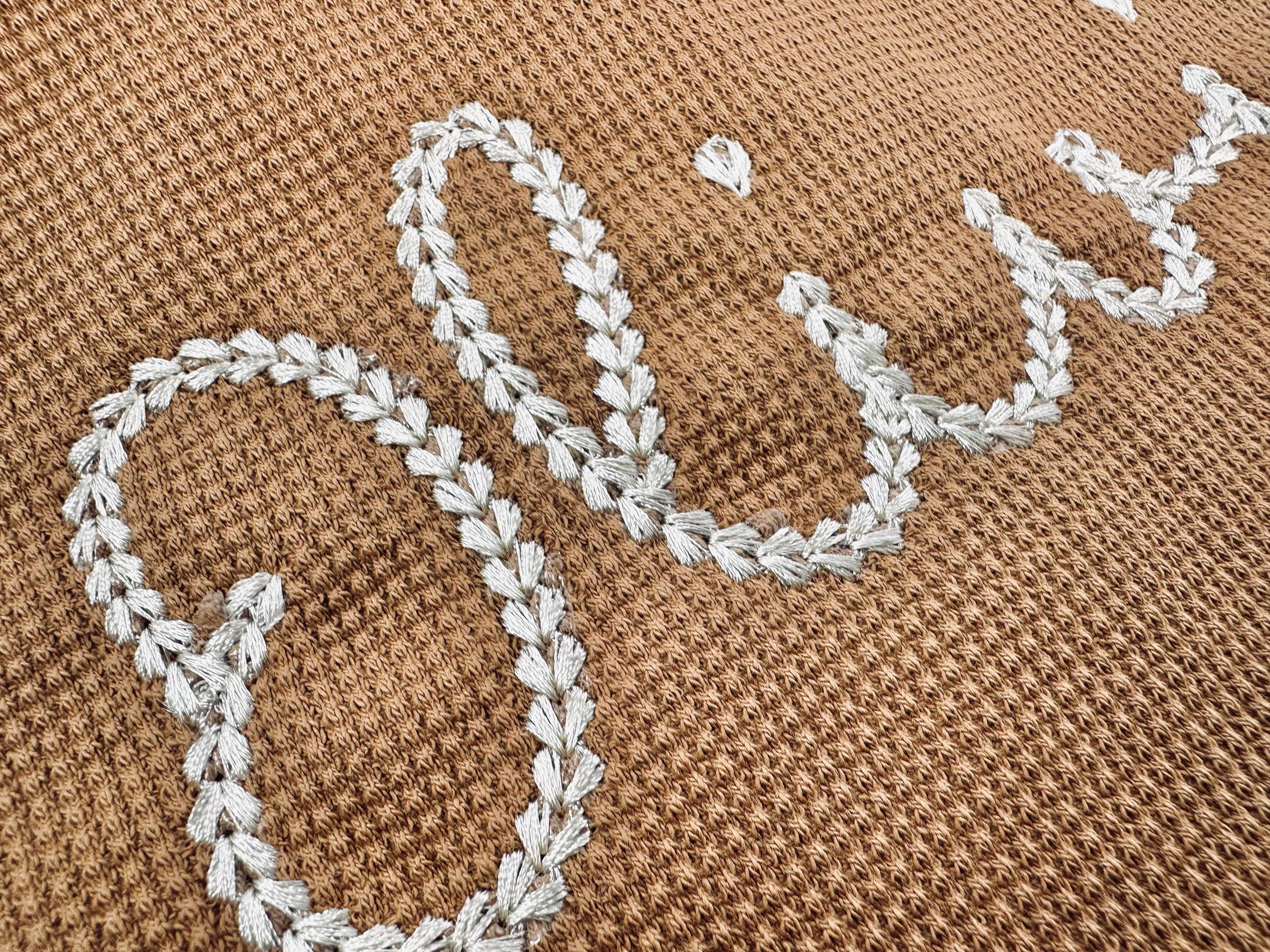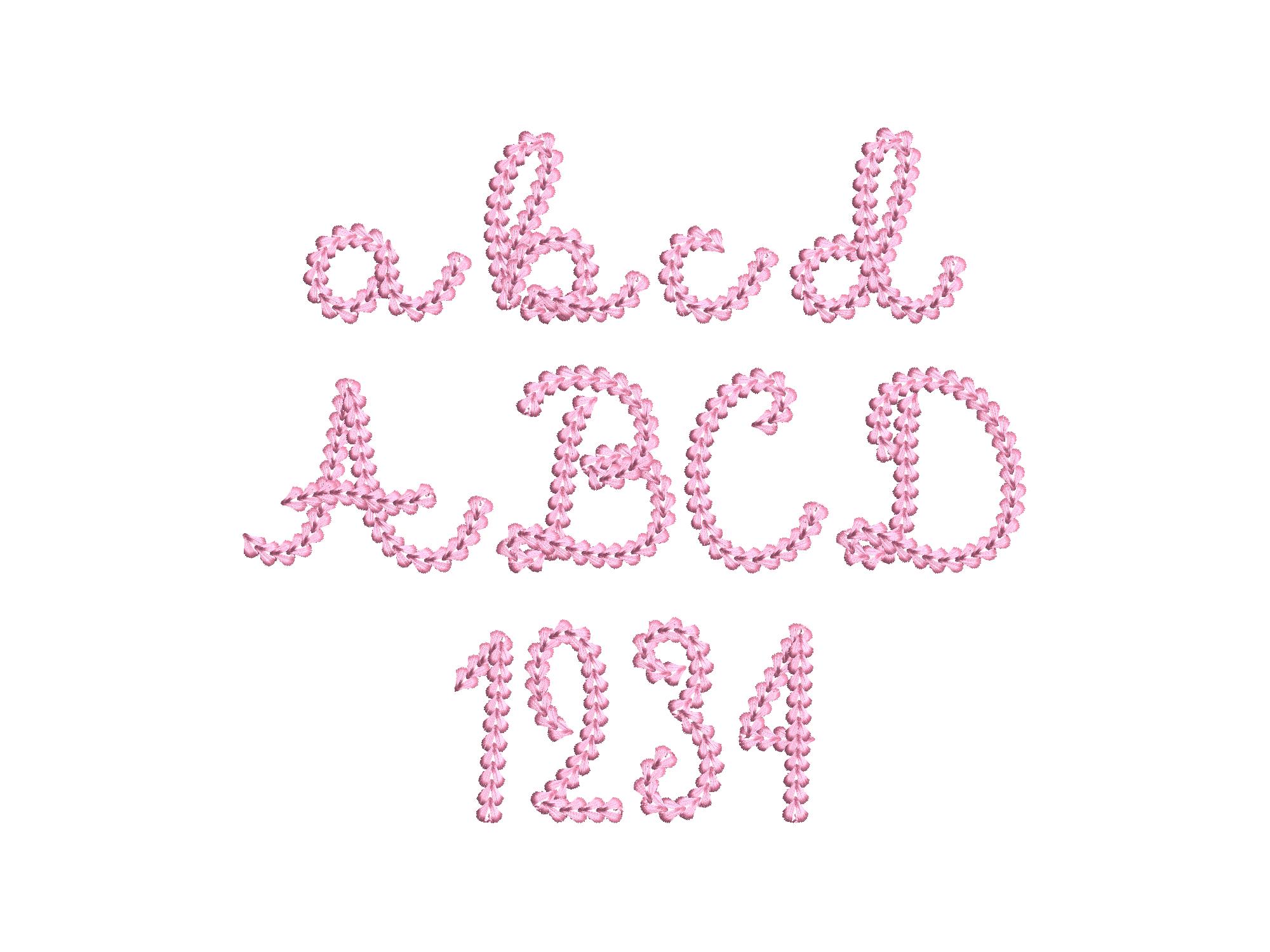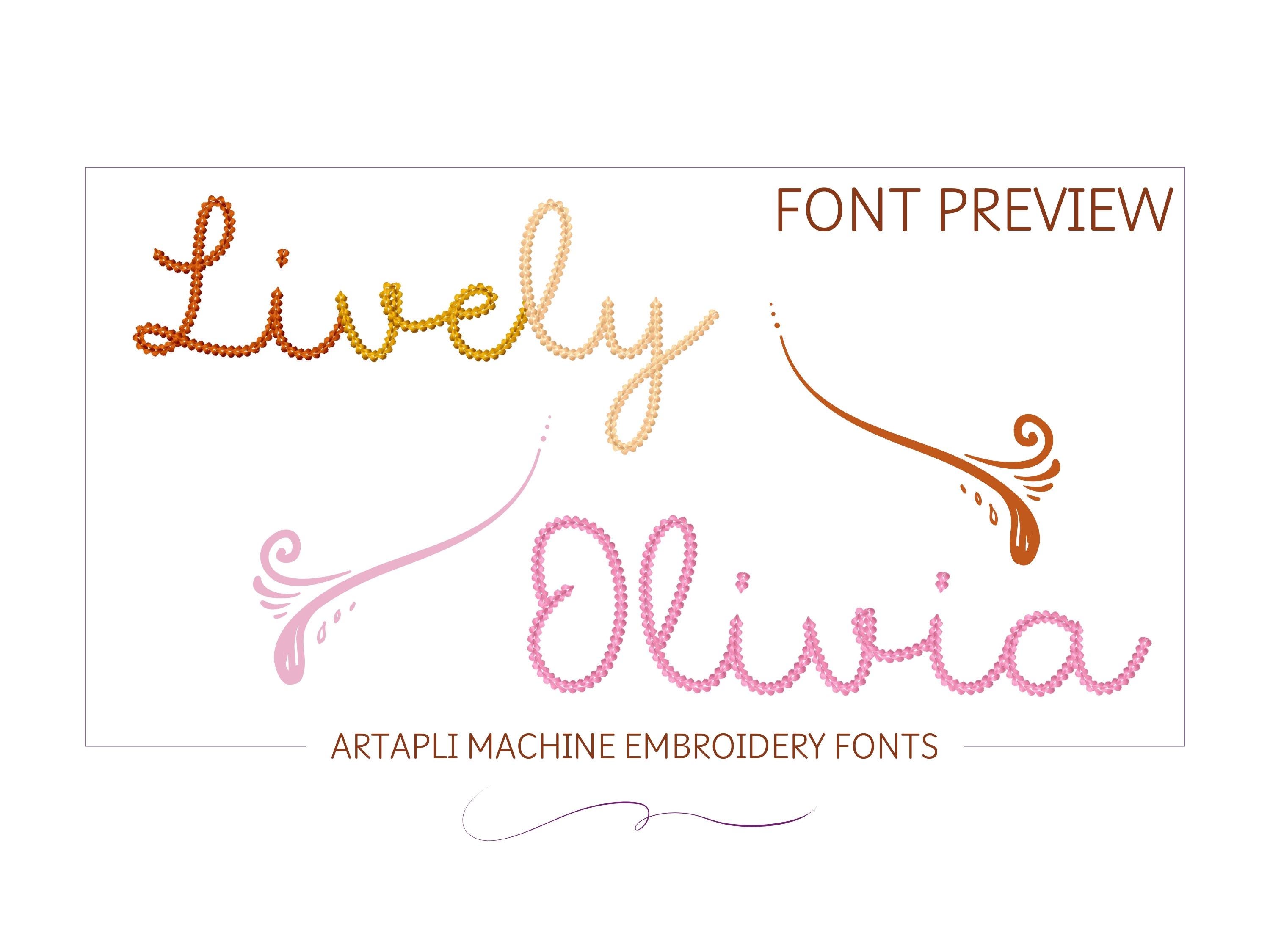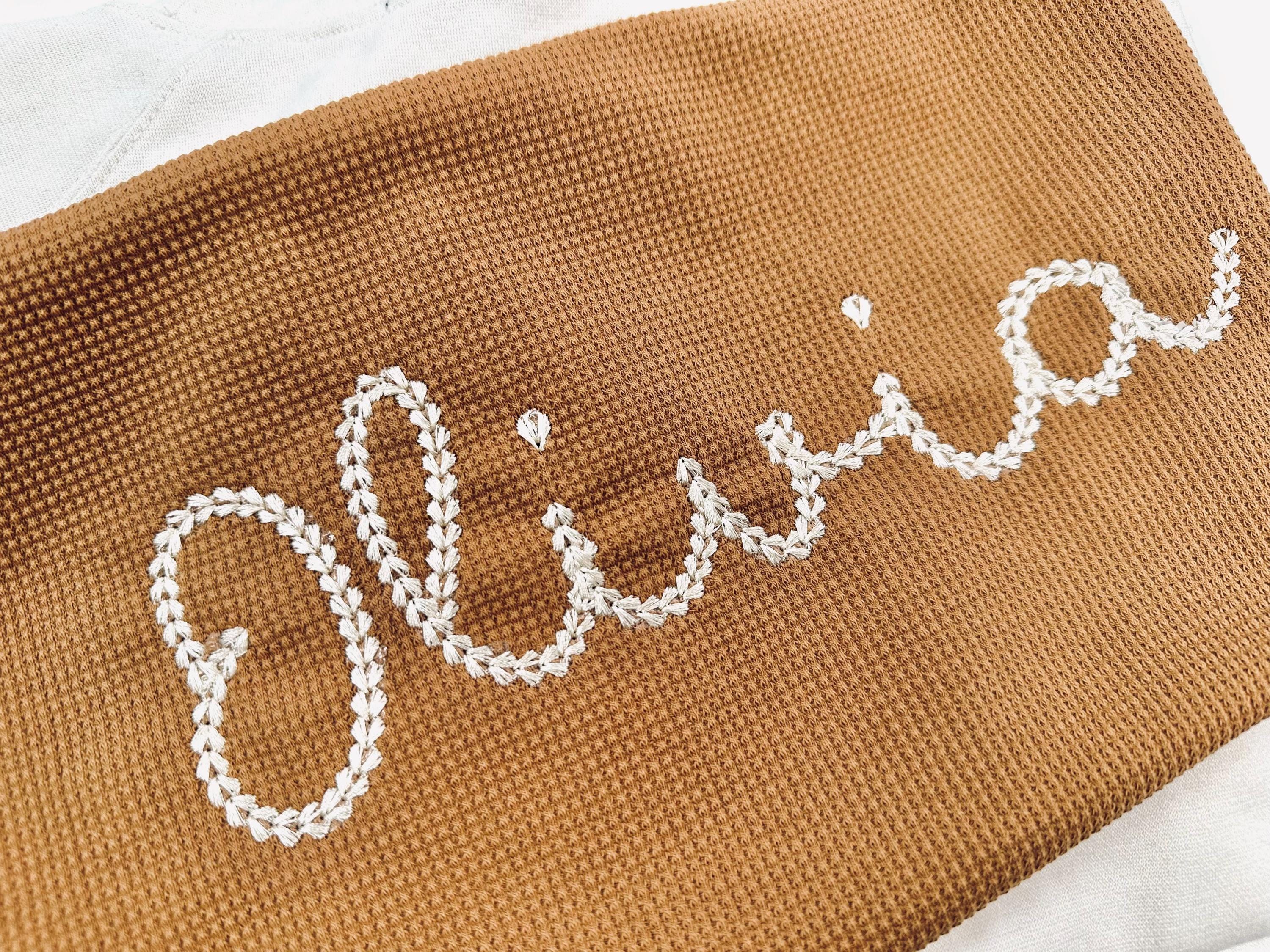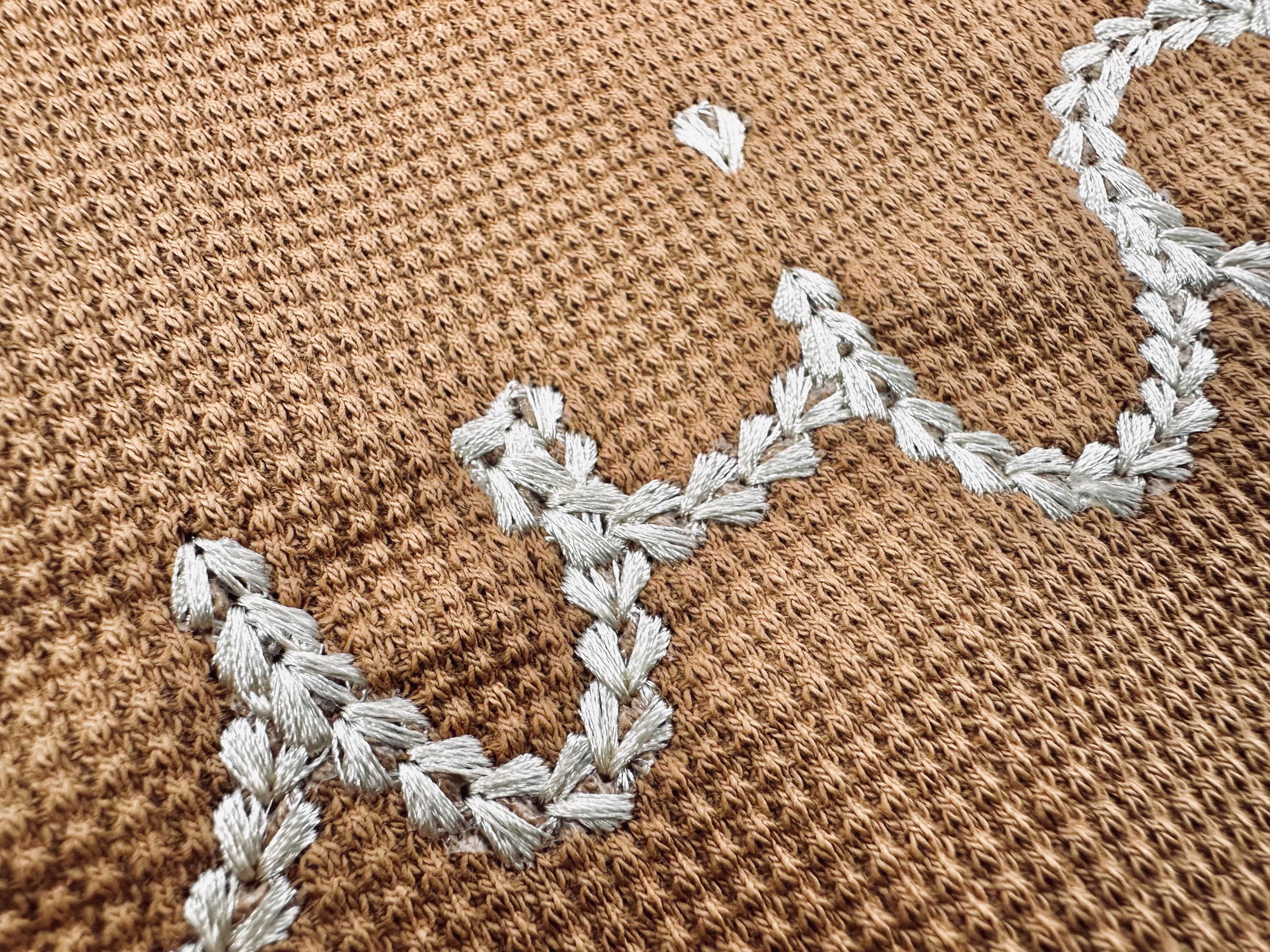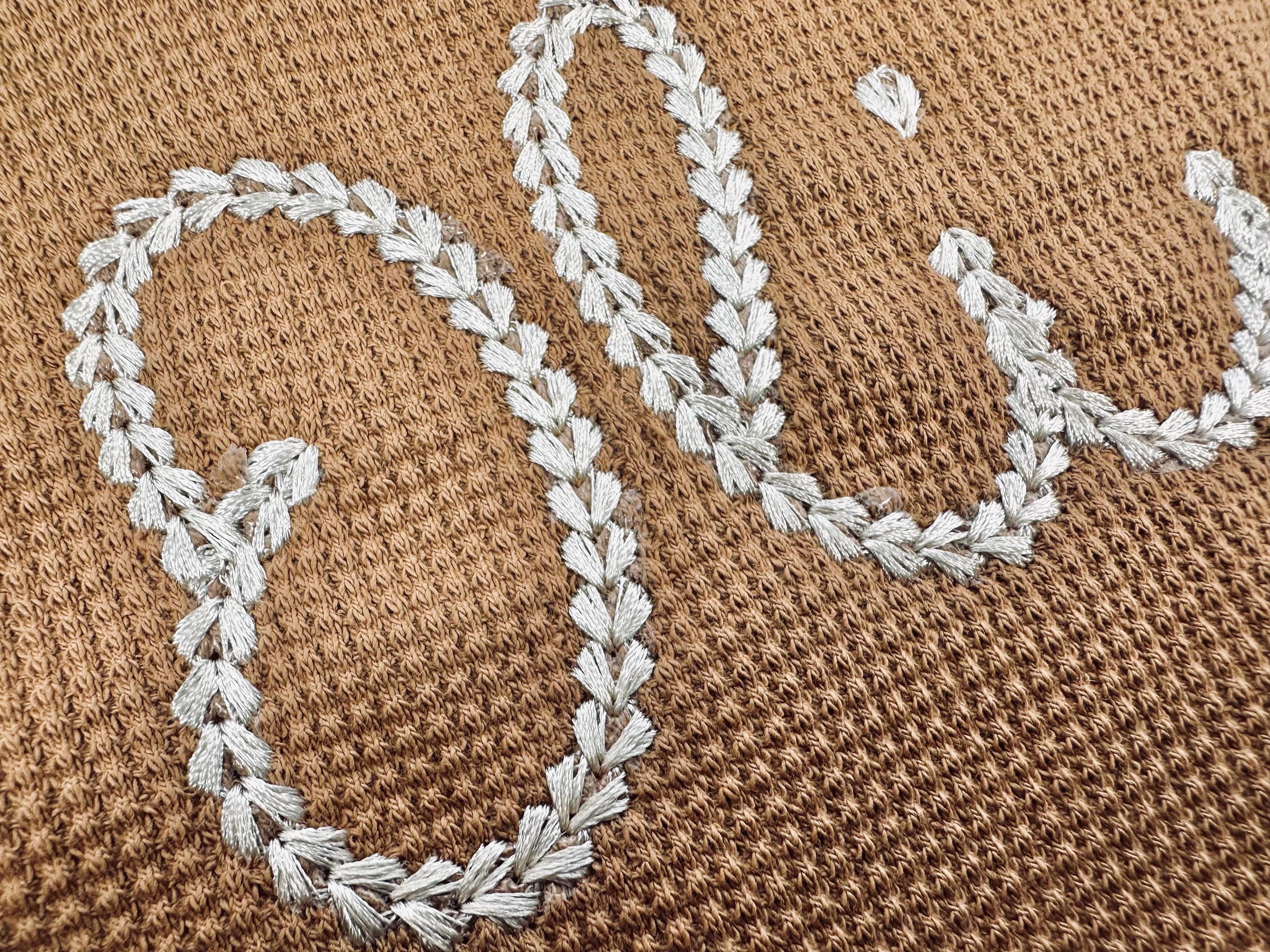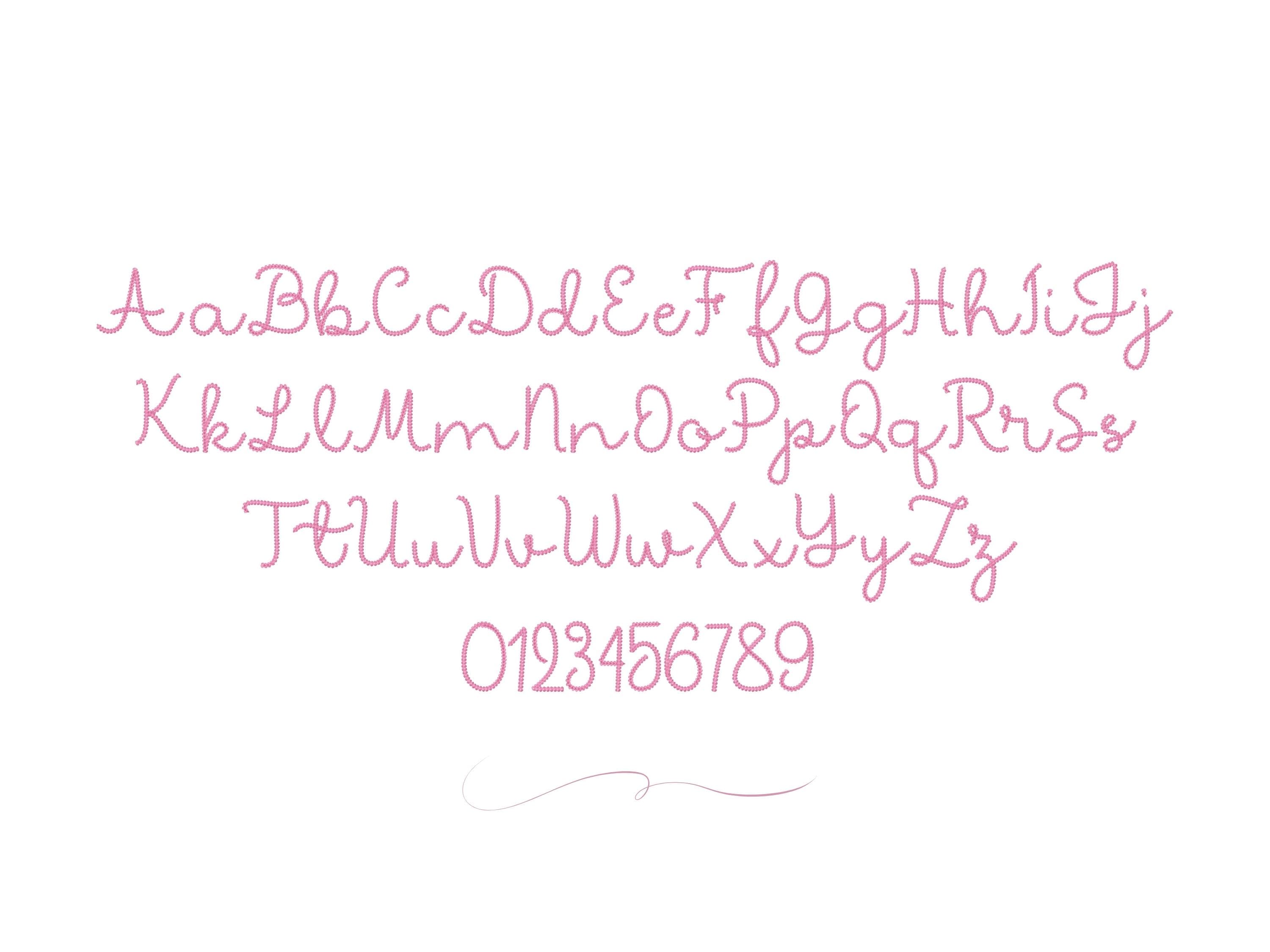
Extra Bold Chain stitch FONT thick chain machine embroidery designs monogram alphabet handwritten font letters knit sweater handmade effect
Entire alphabet uppercase and lowercase letters, and numbers.
I embroidered this on a chunky knit jumper tor 1 year old. Stitched out beautifully. Will definitely use this design on more projects. Love it.